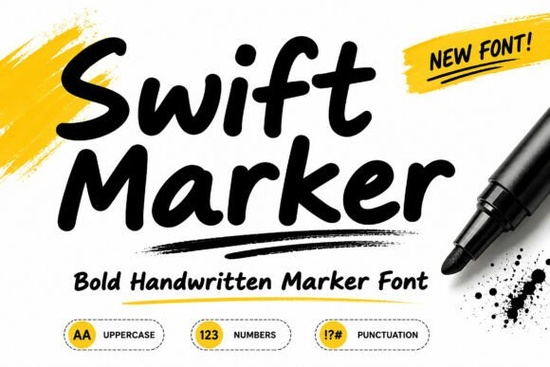
If you’ve been searching for a handwritten marker font that feels alive on the page not too stiff, not too messy Swift Marker Font might be exactly what your next project needs. It’s got that confident, casual energy that works whether you’re designing a logo for your Etsy shop, putting together social media graphics, or printing custom tote bags. The strokes feel natural, like someone just grabbed a fat-tip marker and went to town with purpose.
What makes Swift Marker stand out is how it balances boldness with approachability. You don’t need to pair it with ten other fonts to make it work it holds its own. And if you’ve ever tried using overly delicate script fonts for branding or merch, you know how quickly they can get lost at small sizes or in busy layouts. Swift Marker doesn’t have that problem. Its thick lines and open spacing keep things readable even when scaled down.
Who actually benefits from using Swift Marker?
This isn’t just another pretty font for designers who love typography (though they’ll enjoy it too). Think about:
- Print-on-demand sellers Use it on mugs, shirts, or stickers where you want text to pop without looking corporate.
- Small business owners Perfect for café menus, boutique packaging, or event flyers that need personality.
- Crafters and hobbyists Great for vinyl cutting, hand-lettered-style quotes, or scrapbooking titles.
- Social media managers Stand out in feeds with quote graphics that feel human, not templated.
If you’ve liked fonts like The Cute Handwriting Bundle or Angela in the past, Swift Marker offers something similar but with more punch. It’s less dainty, more direct ideal when you want warmth without sacrificing impact.
How does it compare to other handwritten marker fonts?
There are plenty of marker-style fonts out there, but many either look too digital or too sloppy. Swift Marker hits a sweet spot: intentional imperfections that still feel controlled. Compare it to something like Gadiani, which leans elegant and flowing, or Sweet Cupcake, which is playful and rounded Swift Marker sits right in the middle. It’s got character without being cutesy, structure without being rigid.
You can also check out how it stacks up visually by browsing Swift Marker alongside others like Willow which has a softer, brush-pen vibe to see which suits your current project best.
What kinds of projects is it best suited for?
Here’s where Swift Marker really shines:
- Branding Logos, labels, shop signs. It adds friendliness without looking unprofessional.
- Merchandise T-shirts, tote bags, enamel pins. Bold enough to read from across the room.
- Social posts Instagram carousels, Pinterest pins, TikTok overlays. Feels native to platforms that reward authenticity.
- Invitations & greeting cards Especially modern, minimalist ones where you want one standout element.
- Packaging design Coffee bags, soap labels, bakery boxes. Makes products feel handmade even if they’re mass-produced.
One thing to note: because it’s so bold, pairing it with ultra-thin fonts can create visual imbalance. Try matching it with clean sans-serifs or slightly rounded typefaces instead. If you’re unsure, test combinations using mockups before committing to print or production.
Any tips for getting the most out of this font?
A few practical ideas:
- Use all caps sparingly the lowercase letters have more charm and flow better together.
- Add subtle texture overlays (like paper grain or ink bleed) to enhance the “handmade” illusion.
- Don’t overcrowd layouts. Let the font breathe generous margins help it feel intentional, not chaotic.
- Try adjusting letter spacing slightly tighter than default for headlines it often improves rhythm.
And remember, while Swift Marker looks great solo, sometimes layering it with simpler fonts from collections like Willow or Sweet Cupcake gives you flexibility for body text or secondary info.
Quick checklist before you start your project:
- ✅ Test readability at your intended output size especially for small prints or web banners.
- ✅ Preview color contrast dark backgrounds? Light text? Make sure legibility isn’t compromised.
- ✅ Save a styled mockup as reference so future team members (or future you) stay consistent.
Fonts like this aren’t just tools they’re tone-setters. Swift Marker doesn’t whisper. It speaks clearly, warmly, and with confidence. That’s why it’s worth keeping handy whenever your project needs to feel human, not automated.